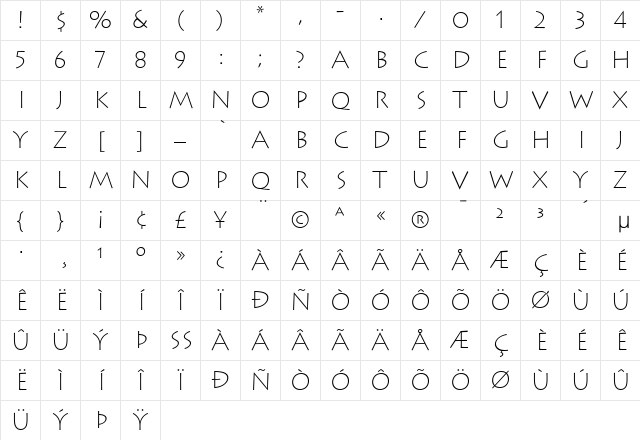
Lithos-ExtraLight Extra Light
Style: Extra Light
Design Context for Lithos-ExtraLight
Lithos-ExtraLight is a composed and adaptable typeface that performs quietly and consistently across a wide range of design contexts. Its slender proportions lend an understated elegance to any composition.